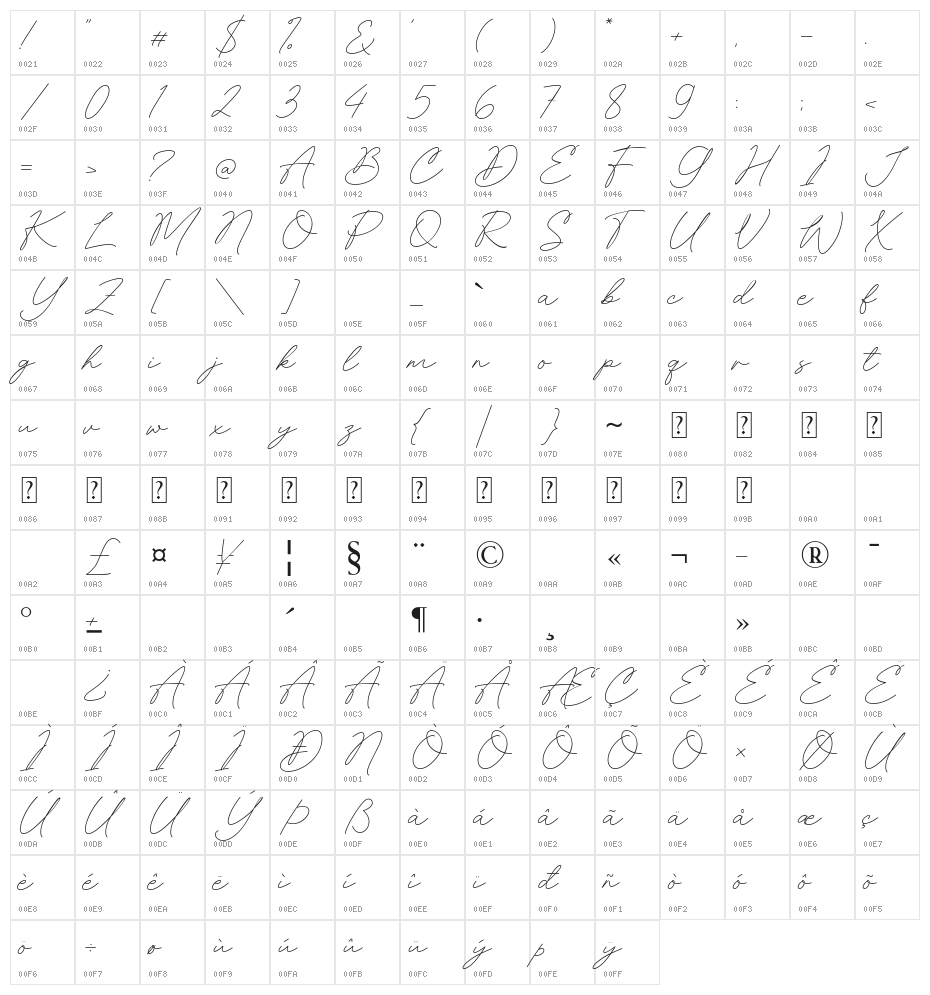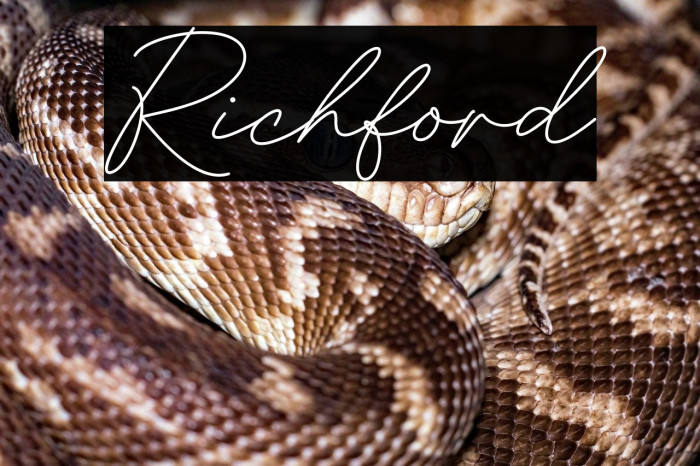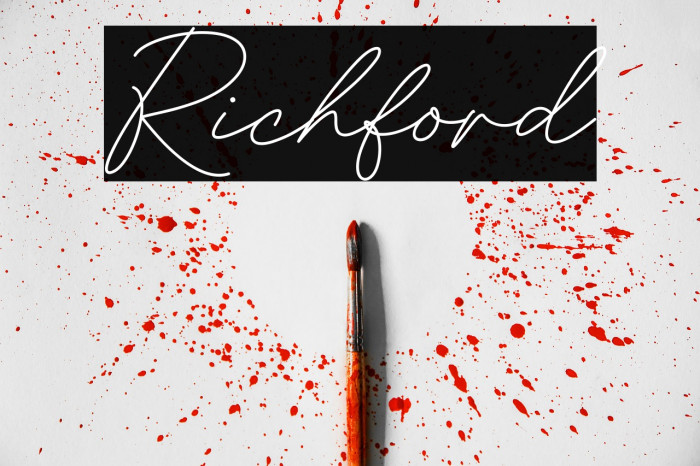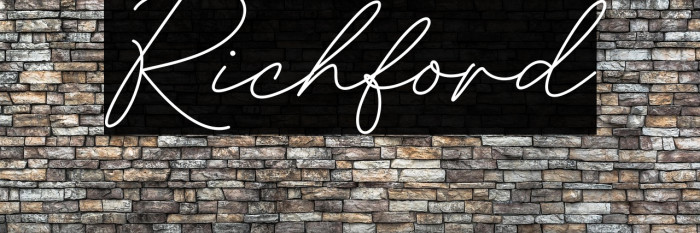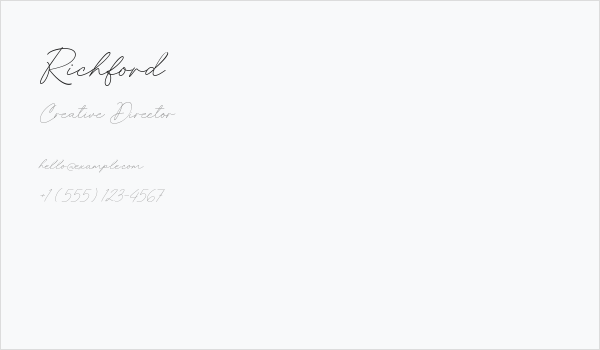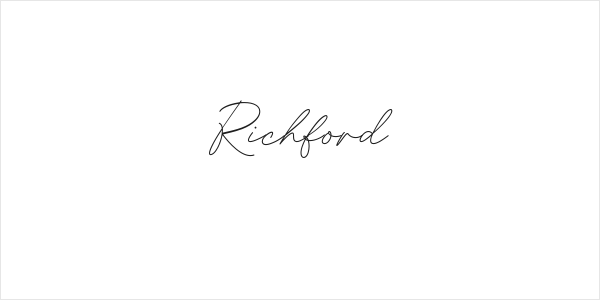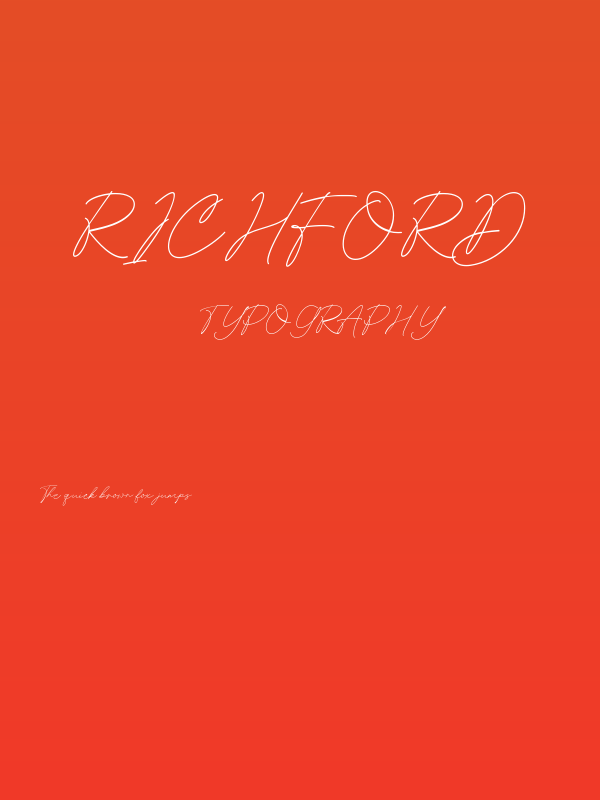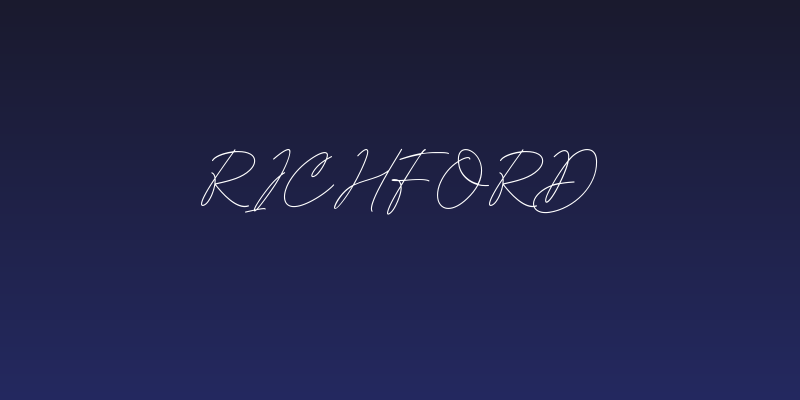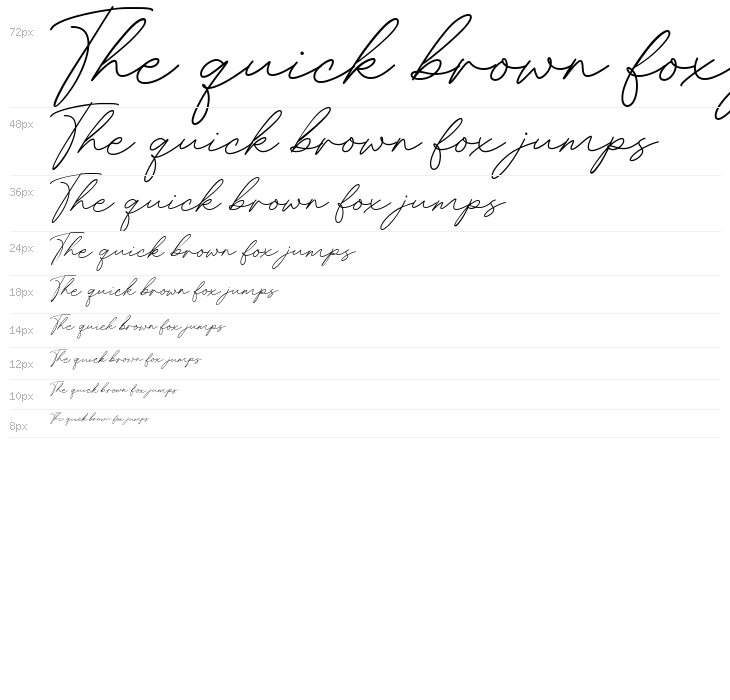
Richford Font
Richford Description
A flowing, elegant script font with a handwritten style, featuring smooth, connected strokes and a natural, cursive appearance.
| Overall Style | Elegant, Handwritten |
| Proposed Projects | Wedding invitations, greeting cards, personal branding. |